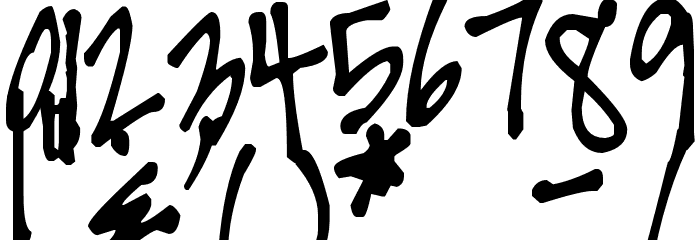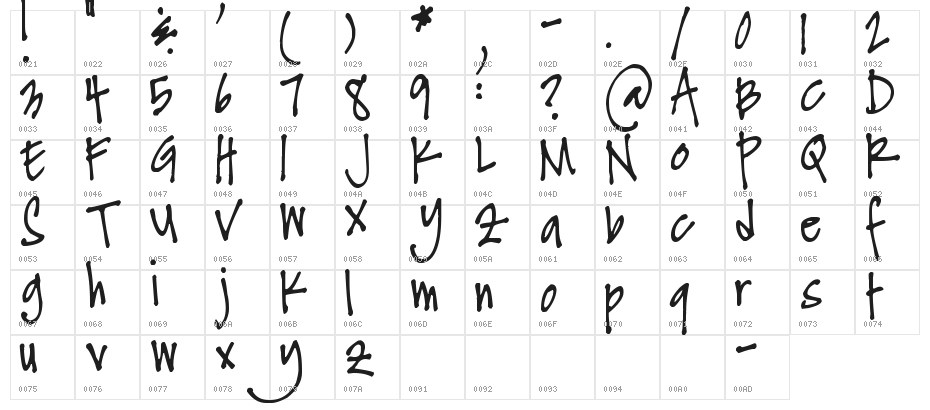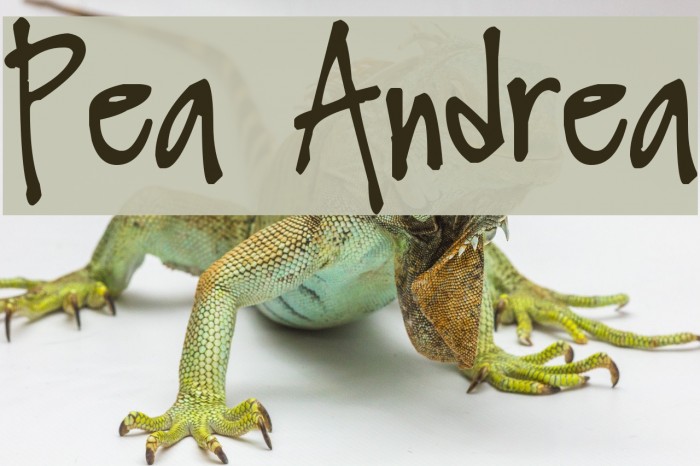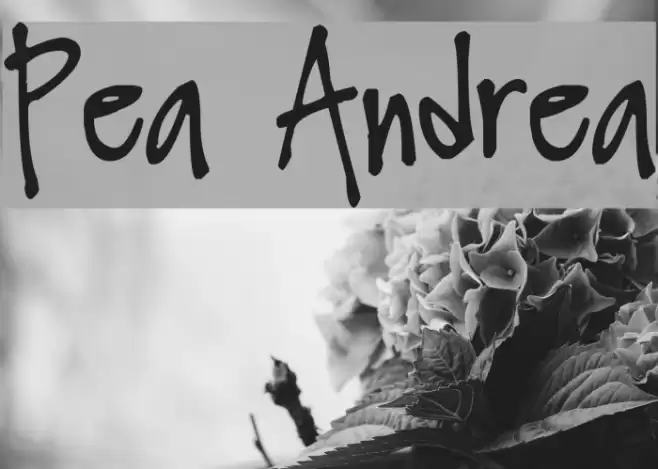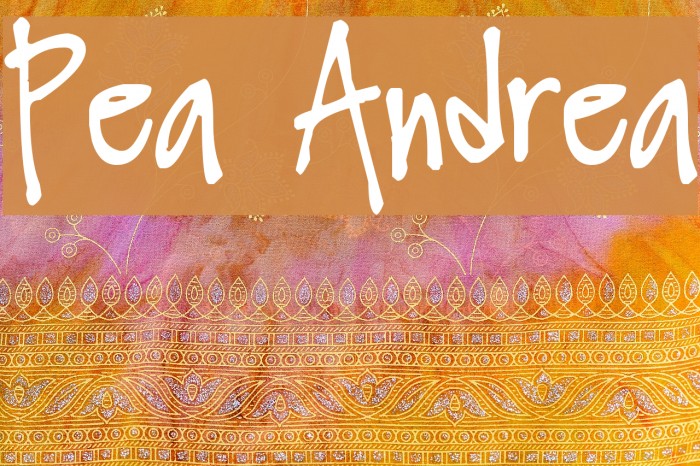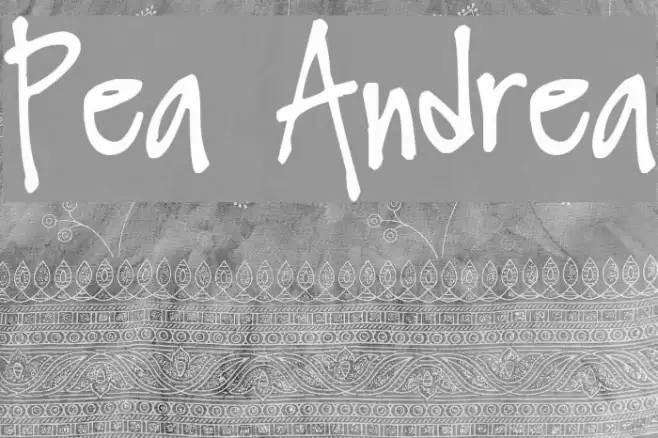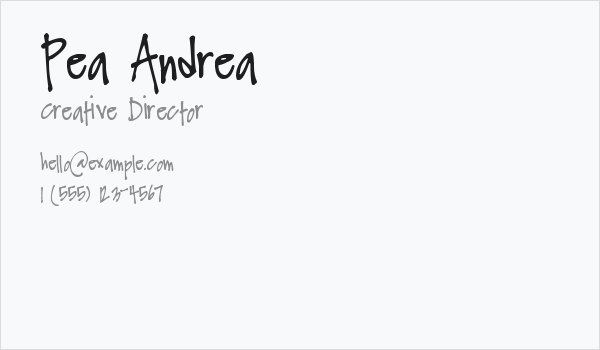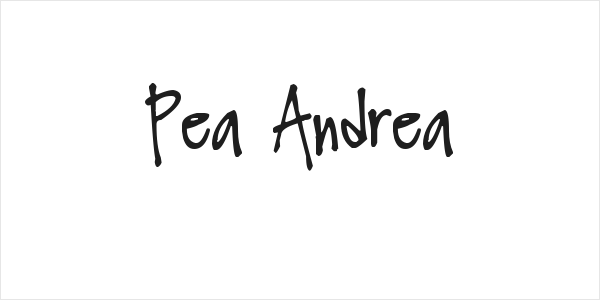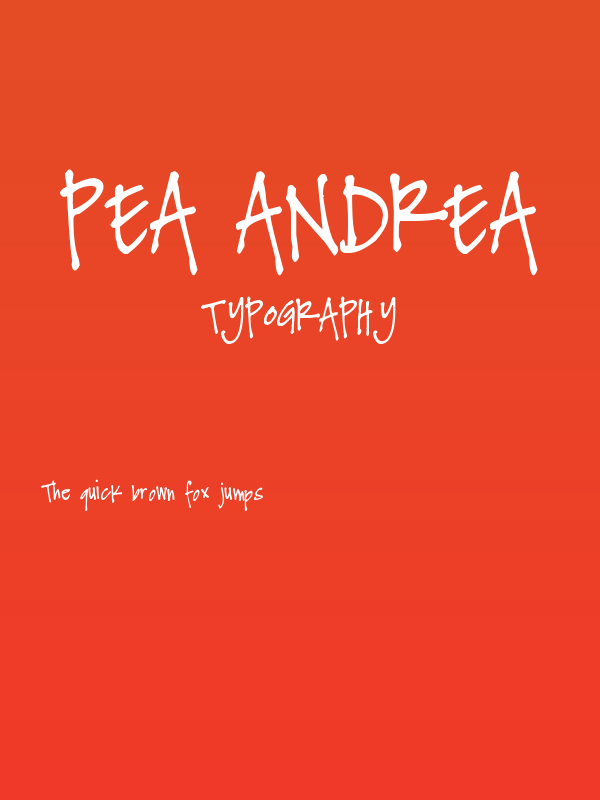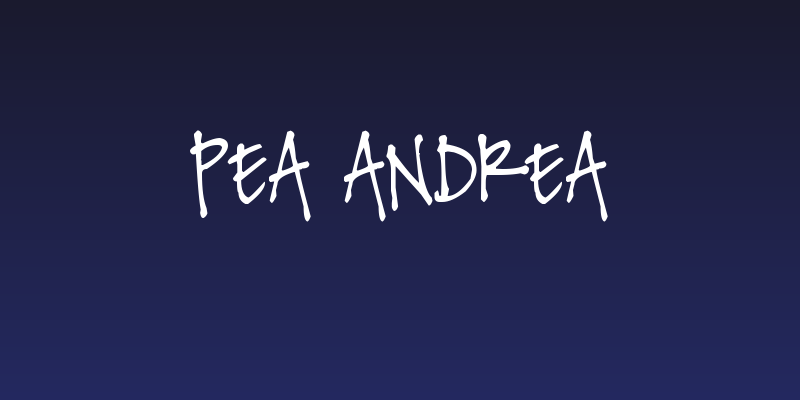
Pea Andrea Font
Pea Andrea Description
This font exhibits a playful and casual handwritten style, characterized by its loose and informal strokes. The letters are unevenly sized, adding to its whimsical and spontaneous appearance. The uppercase and lowercase letters maintain a consistent flow, with slightly exaggerated curves and loops that give it a lively personality. Numbers and special characters follow the same freeform style, making it suitable for creative and informal designs. The overall look is dynamic and energetic, perfect for projects that require a personal touch.
| Use Case | Logos, Headlines, Informal Invitations |
| Proposed Projects | Ideal for greeting cards, children's books, personal blogs, and creative branding projects. |